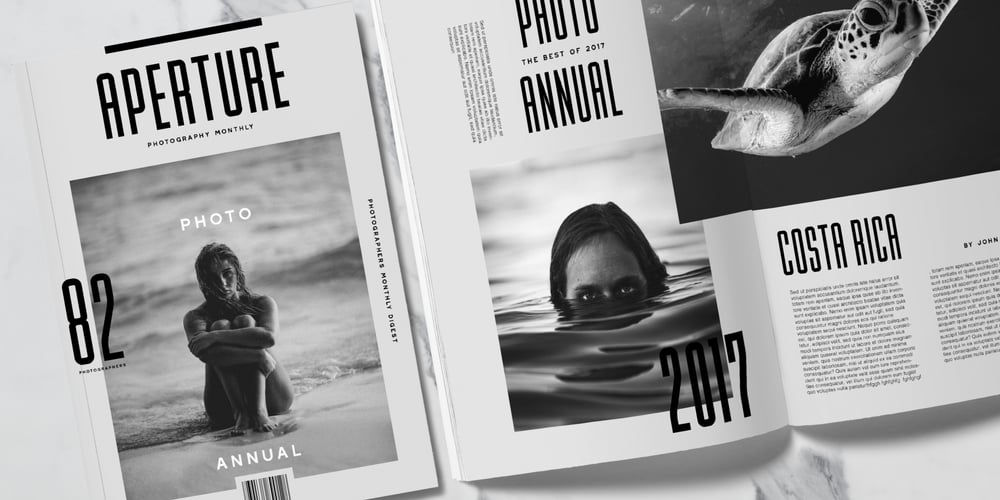
Lion and Hare Font Family was designed by Greg Nicholls and published by Rook Supply. Lion and Hare contains 6 styles and family package options. Lion & Hare is an ultra compressed, tall font family that portrays strength and power. The condensed characters maintain fairly square edges to give a more consistent geometric & industrial look to the font. The font family supports 27 languages and comes in 6 styles. Lion and Hare works fantastic for website headers, magazine layouts, logos, branding and much more.